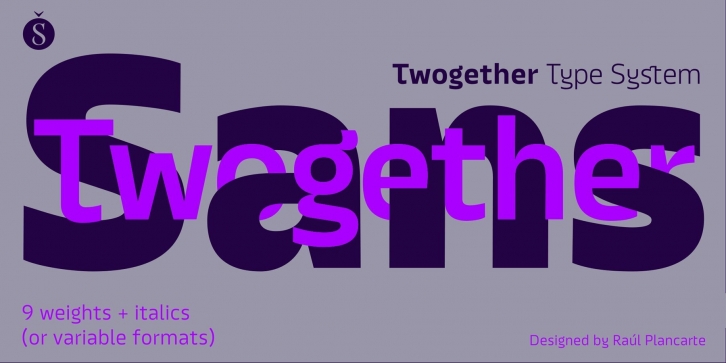
Twogether Sans builds upon the achievements of Twogether Rounded, creating a more comprehensive system and positioning itself as a suitable choice for general text usage. By removing the rounded elements from each character, Twogether Sans gains increased flexibility and a broader range of possibilities for different types of projects.
It retains the essential characteristics of its counterpart, such as proportions, x-height, small caps, ligatures, numerals, and the construction of the italic variant. This version also introduces distinctive alternate characters for "T," "Y," "y," and "a." However, in this case, the position of the "a" with an old-style eye has been adjusted to enhance legibility in this context.
These details maintain consistency with the Rounded version while reinforcing Twogether Sans' unique personality. It remains an excellent choice for branding, editorial design, promotional materials, packaging, and digital applications.